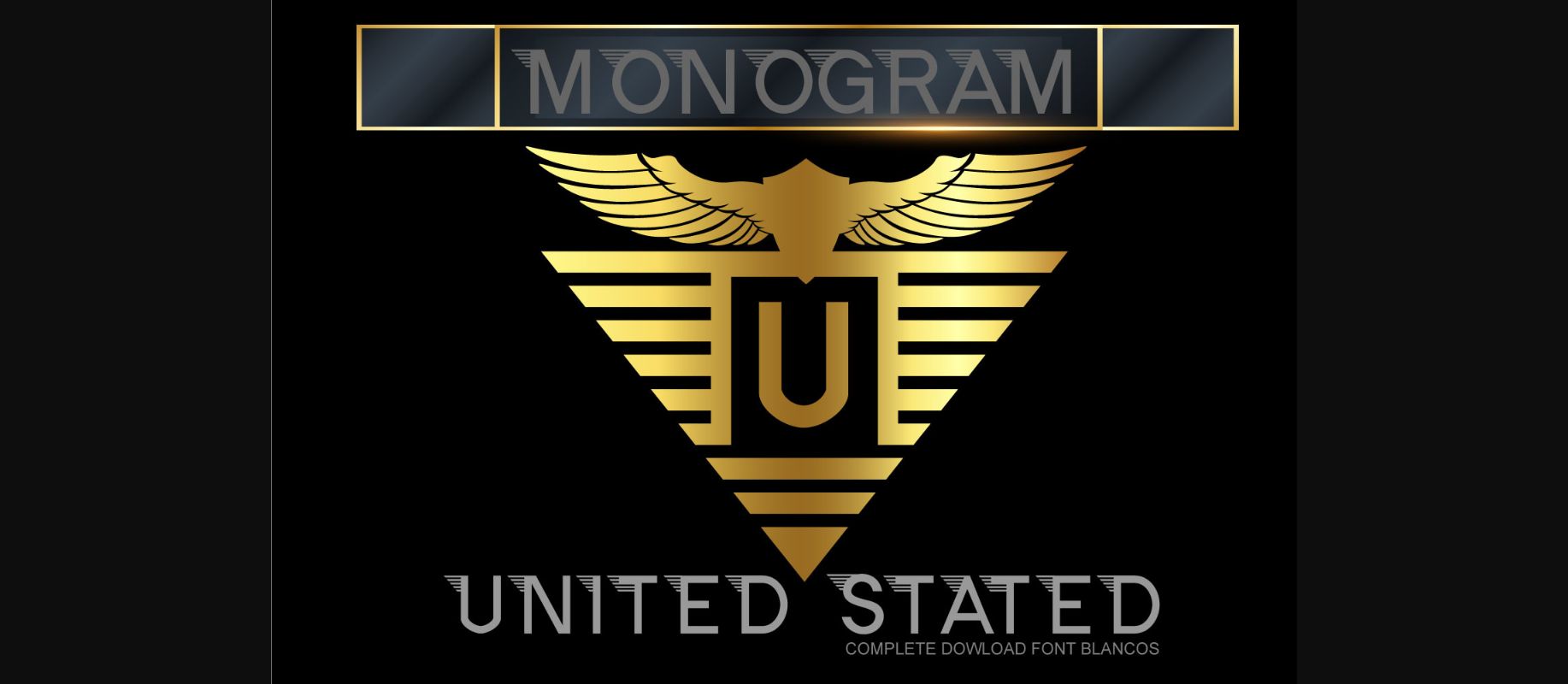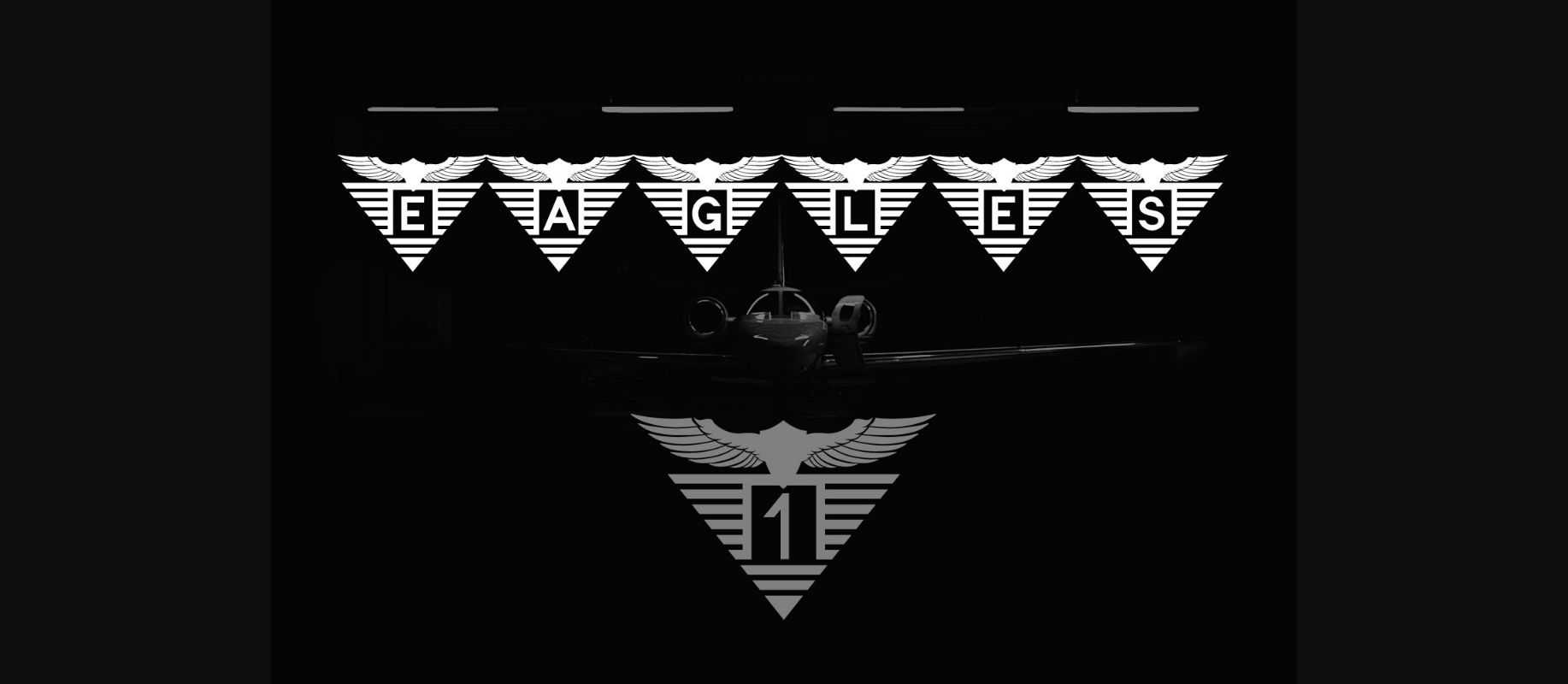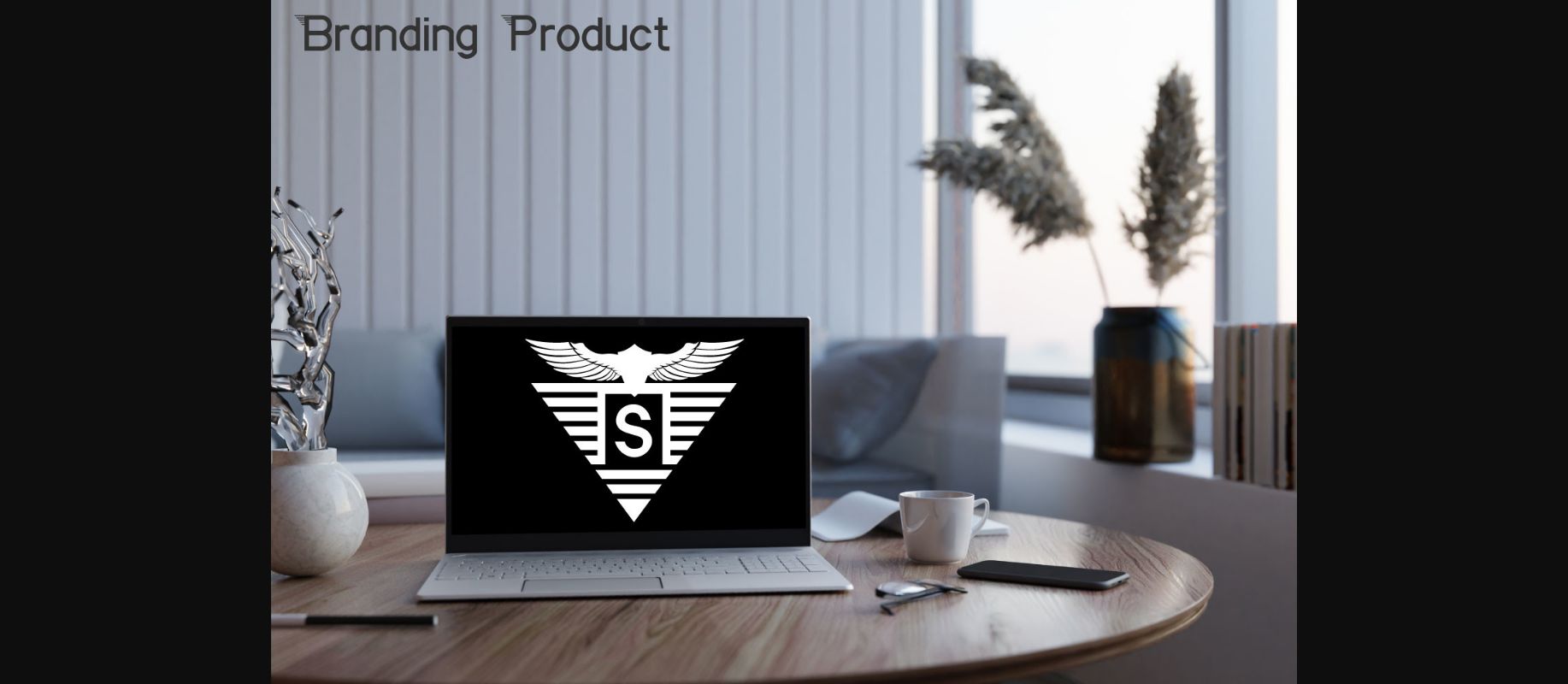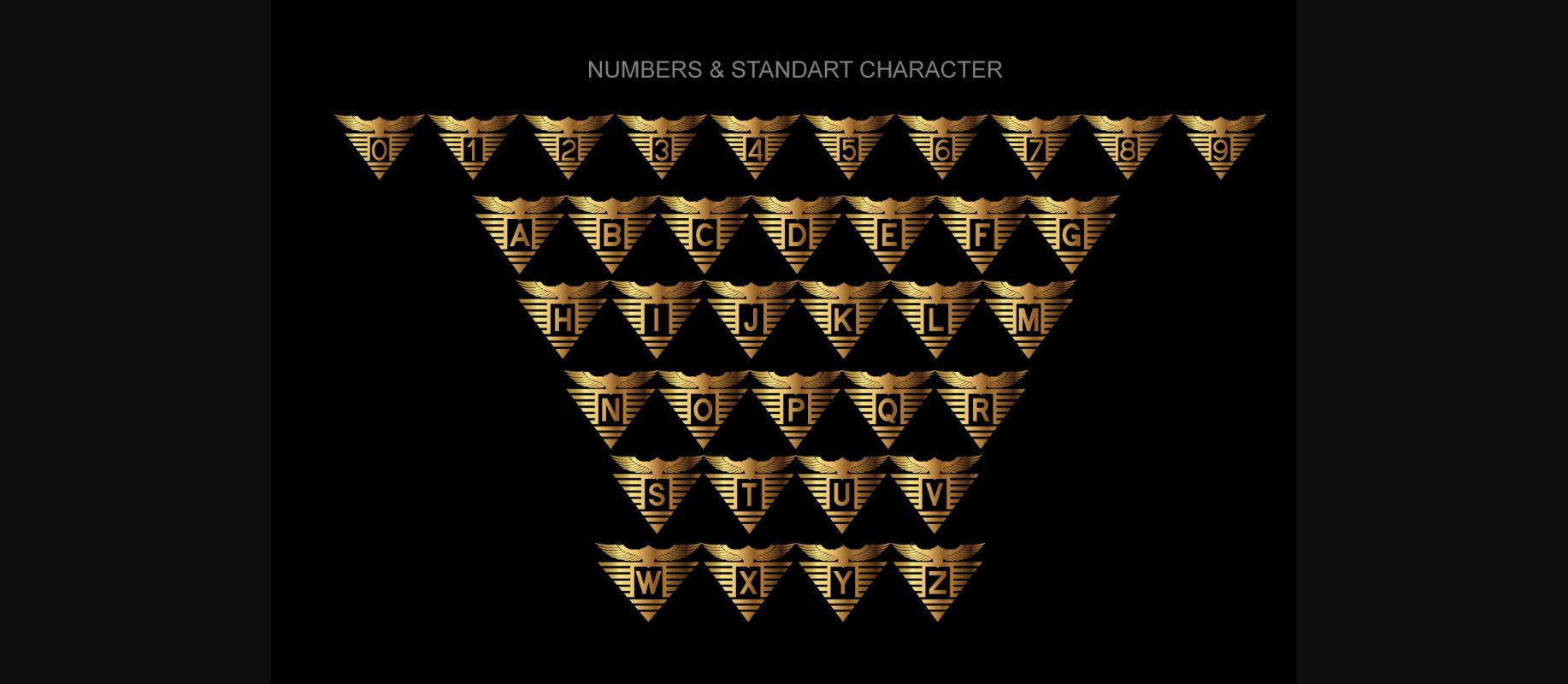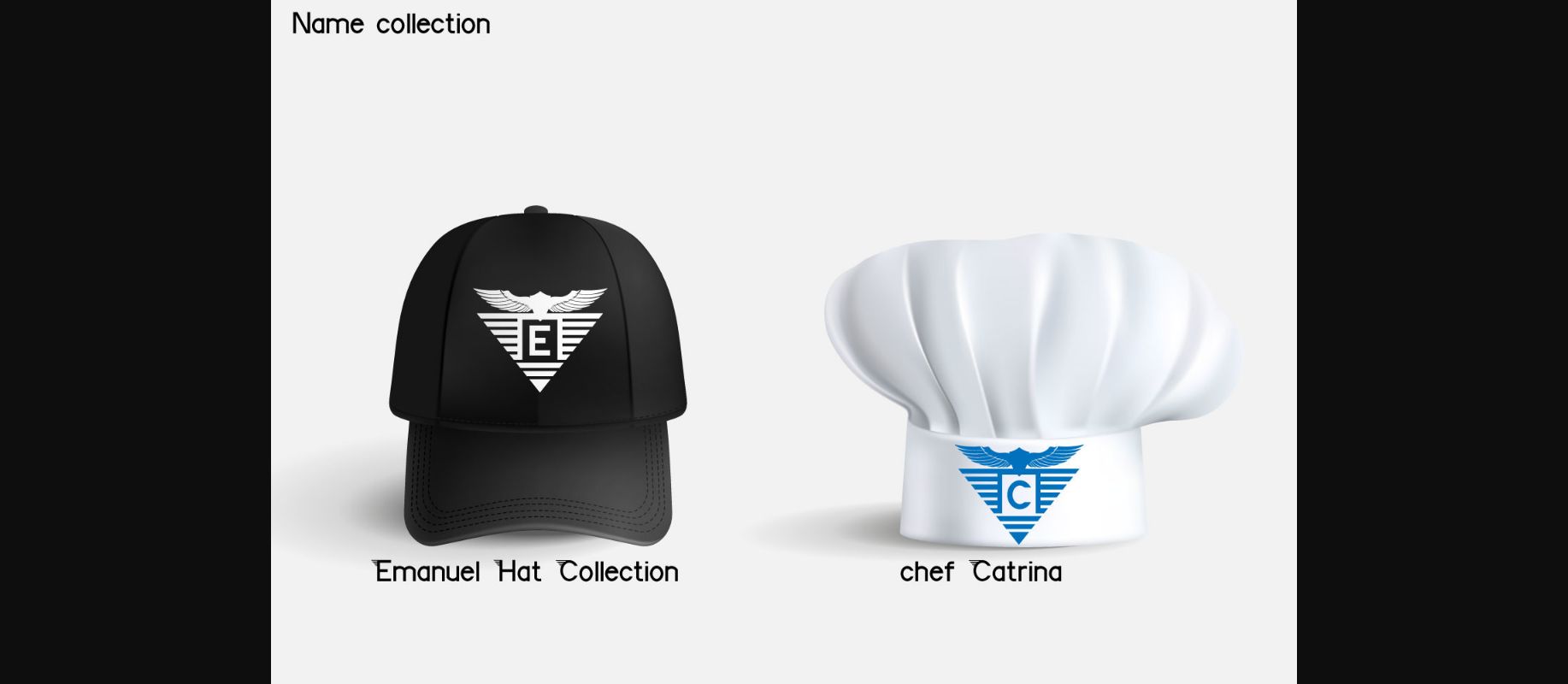
Monogram Eagles Font
About Monogram Eagles Font
Monogram Eagles is a cool and unique decorative font. This creative font can work for a variety of patriotic designs. Have fun with this beautiful font and explore its endless variations.